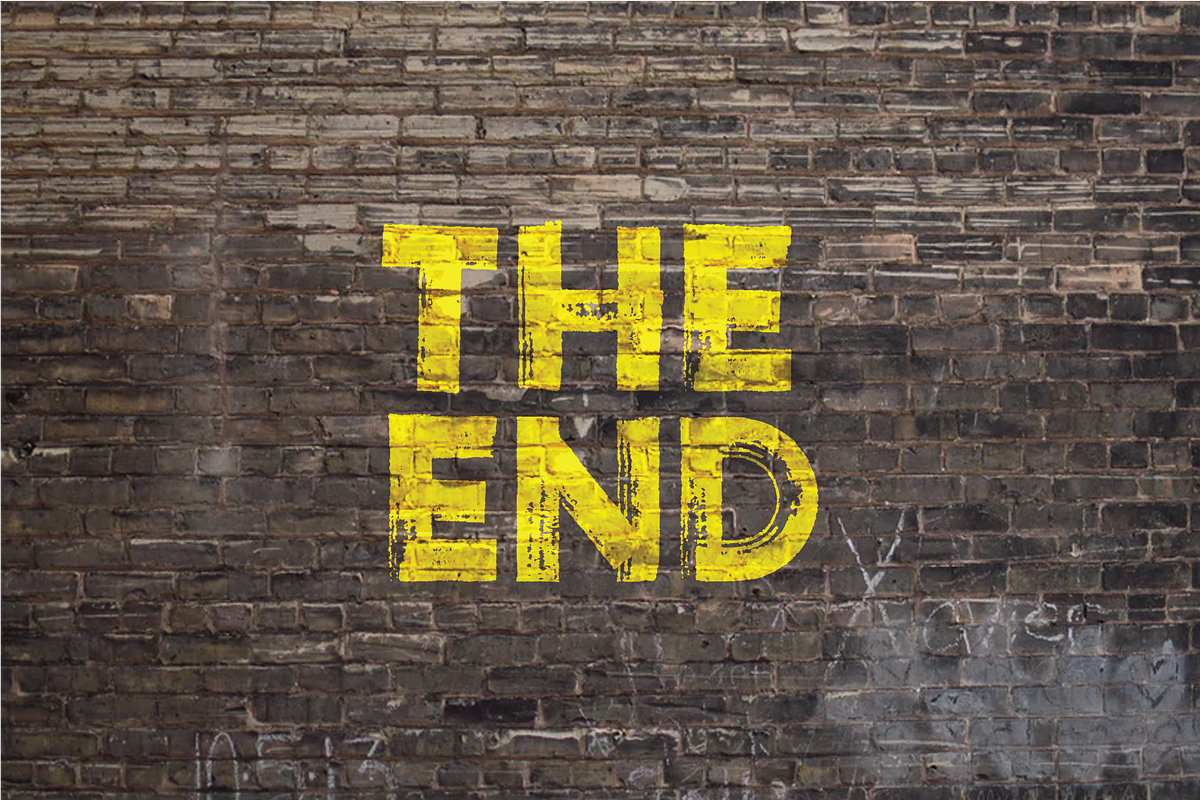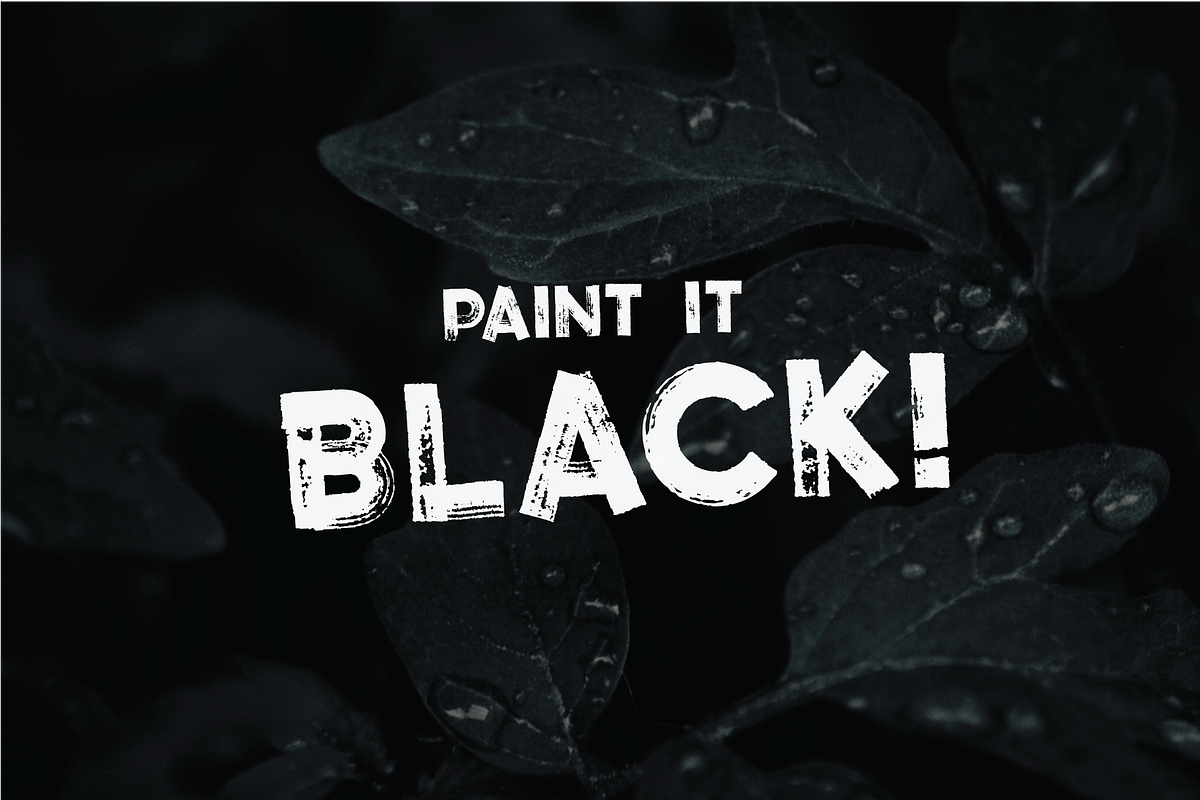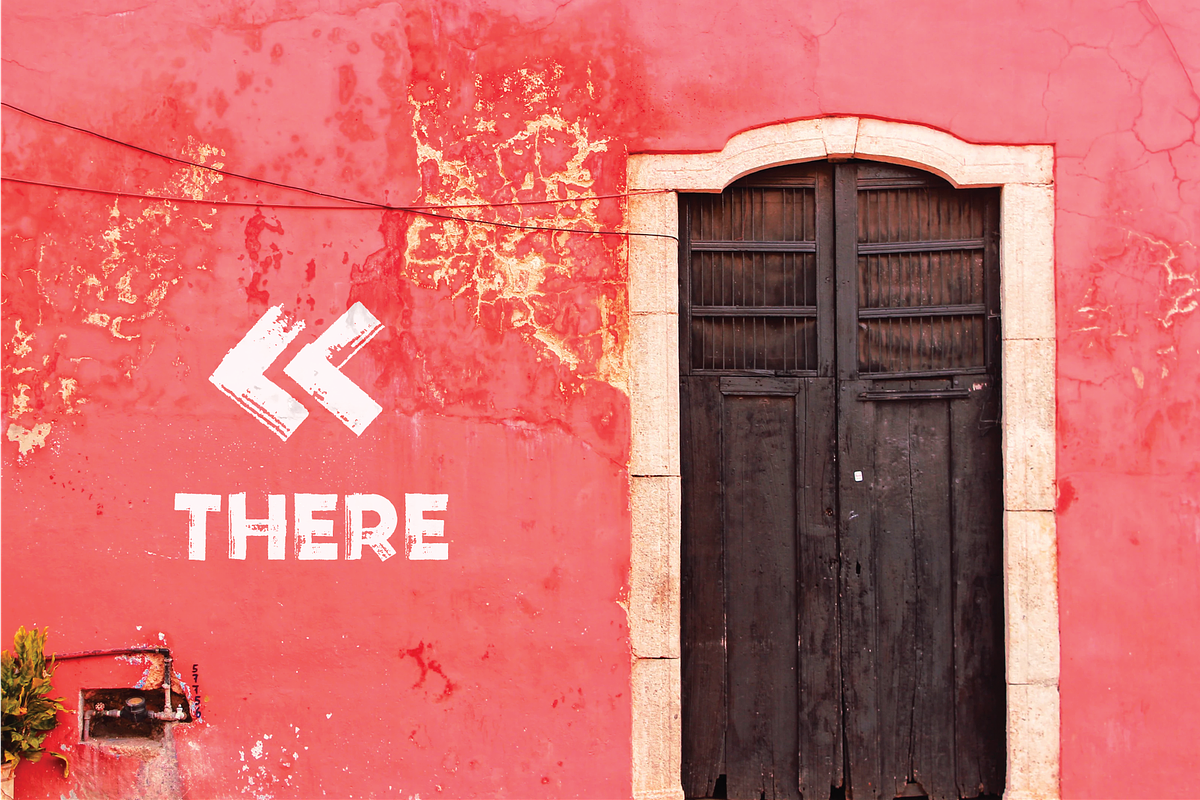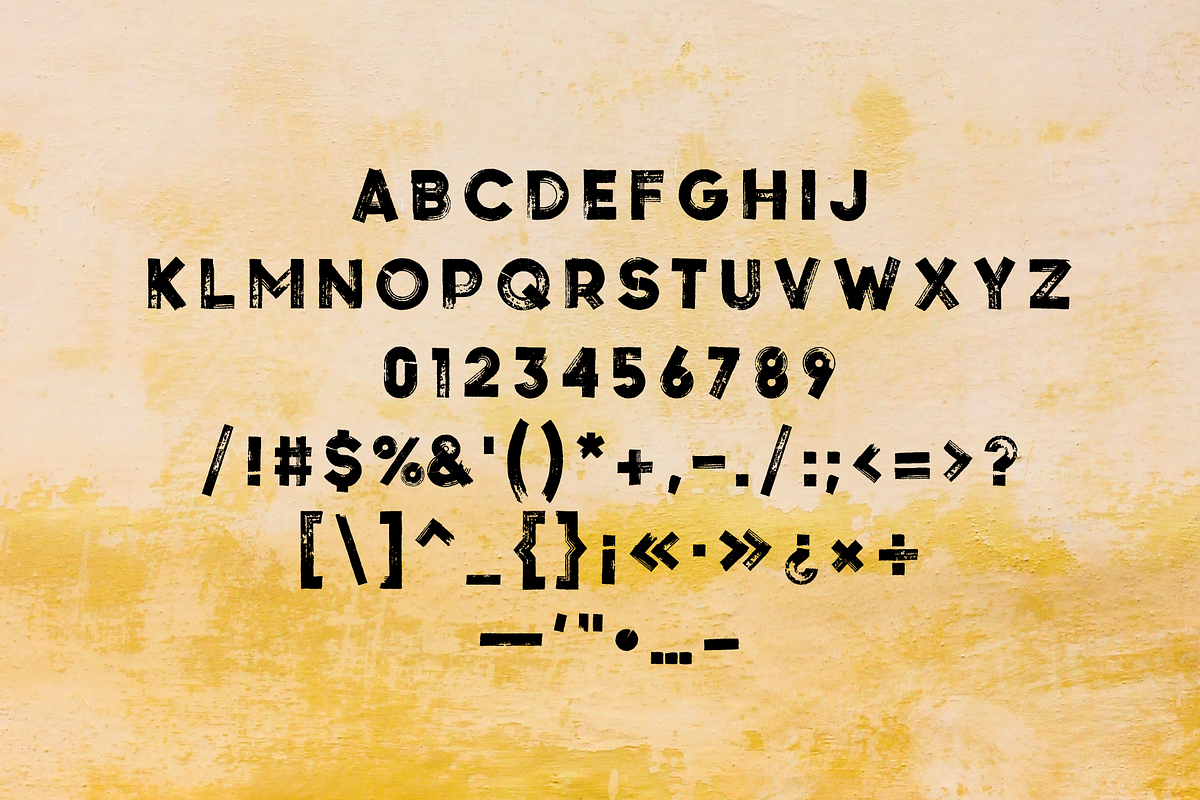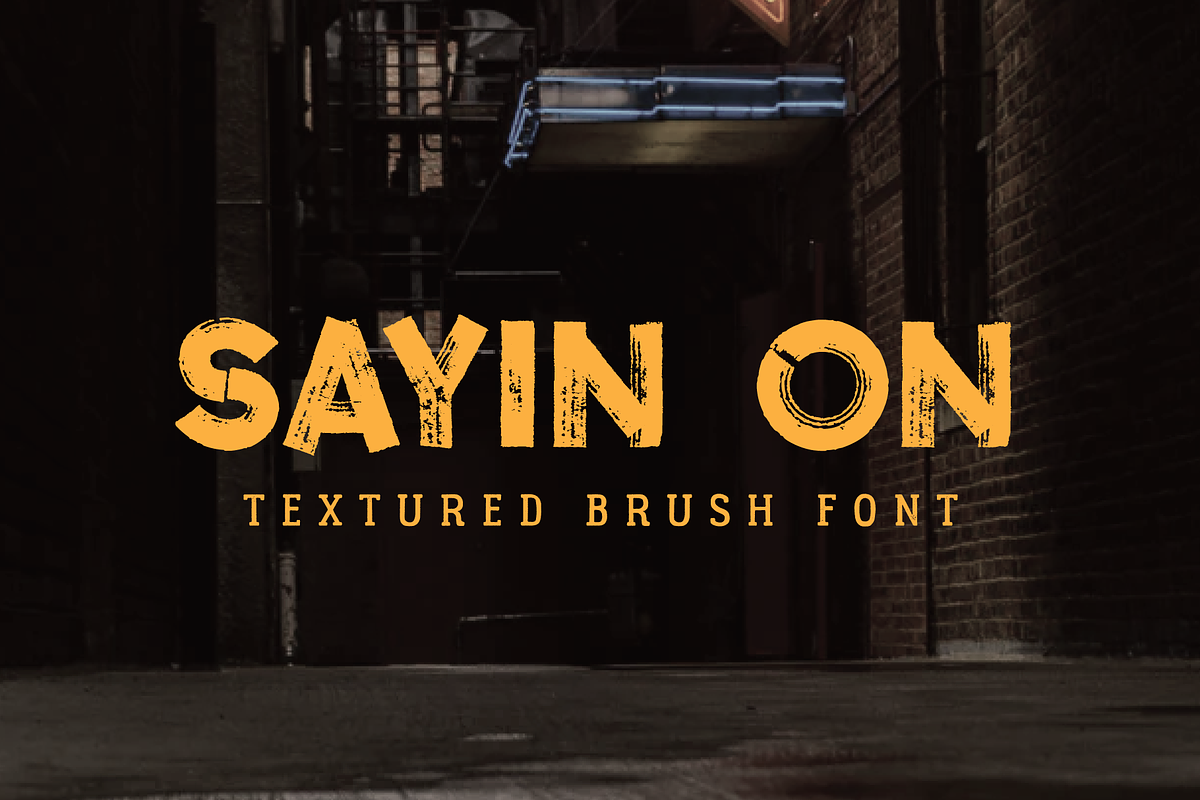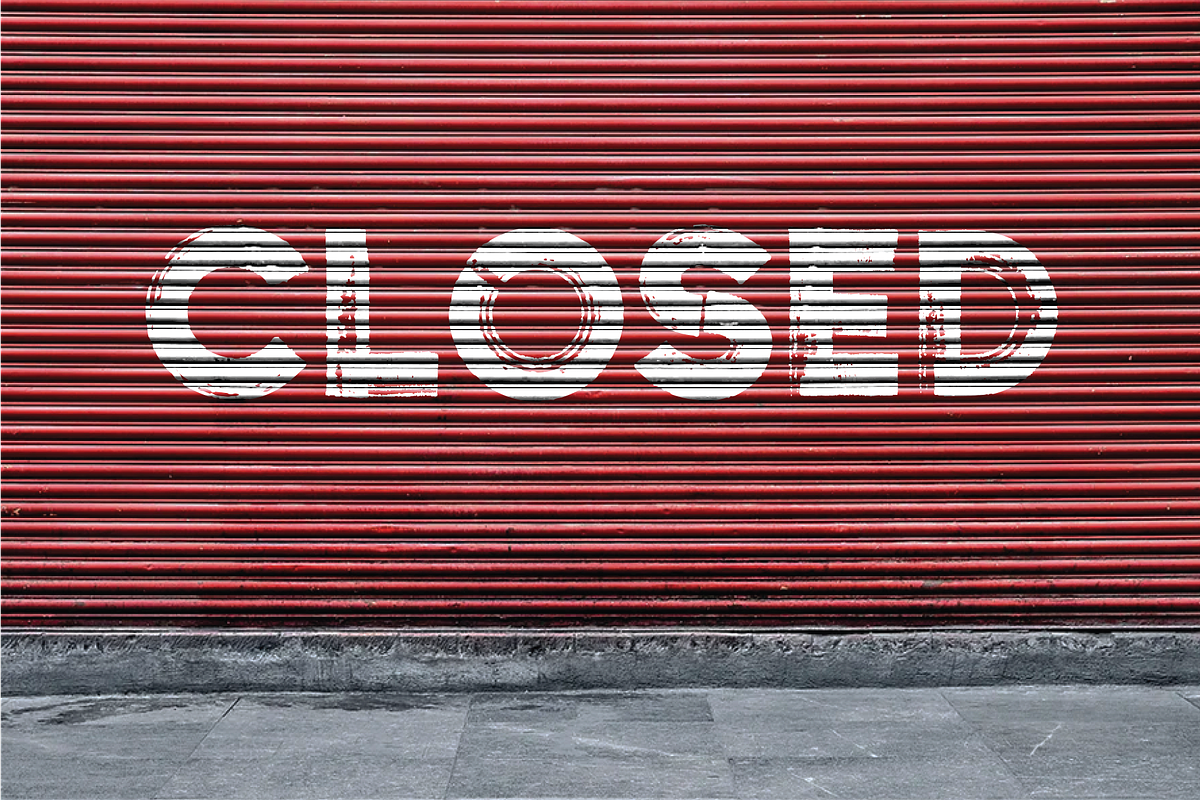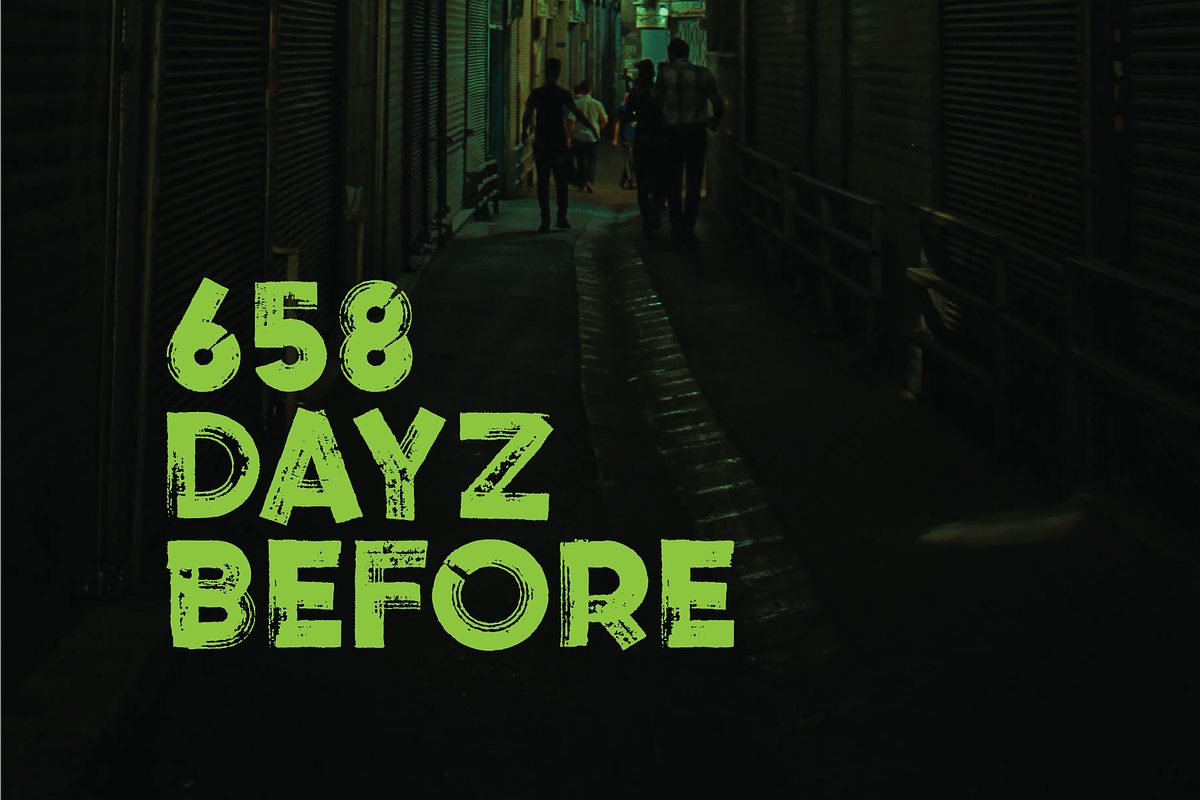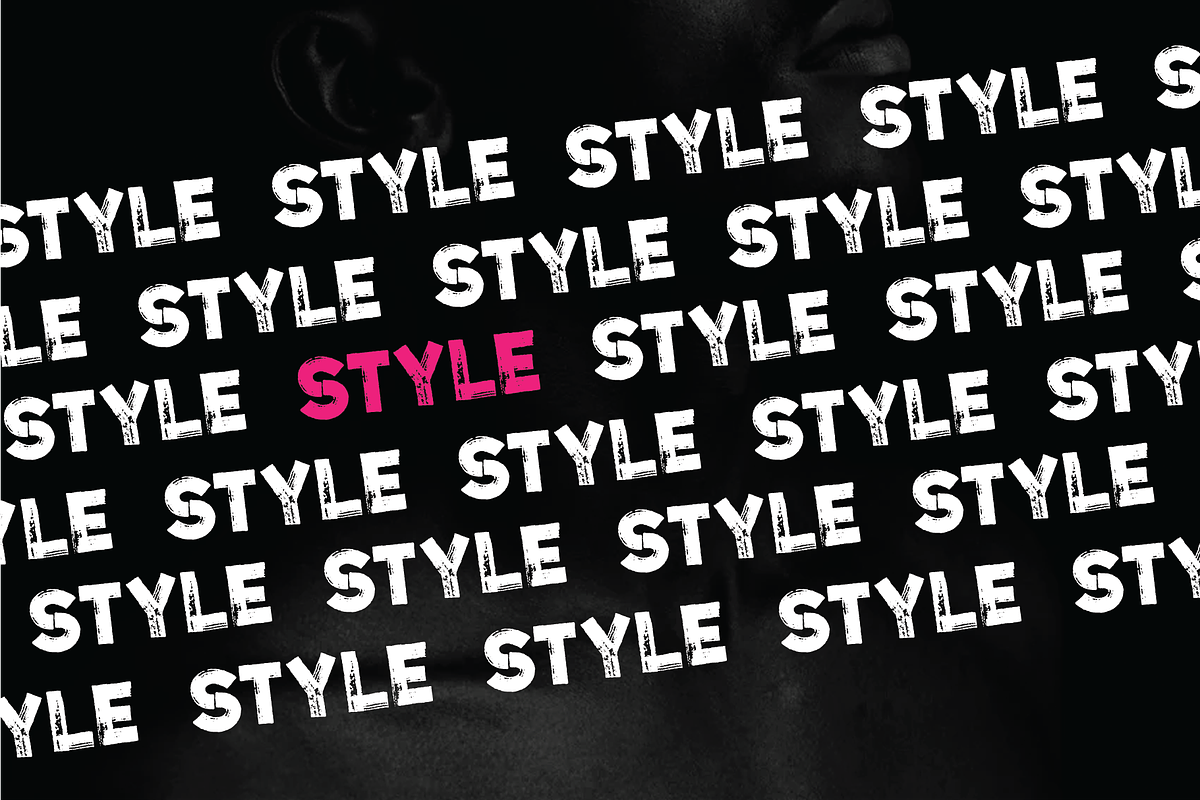
Textured Grunge Font
"Sayin On" is a textured font with hand brushed strokes.
It’s hard and grunge. Best using in branding, logos, title design, t-shirt, covers design, poster and events.
Numbers & Basic punctuation